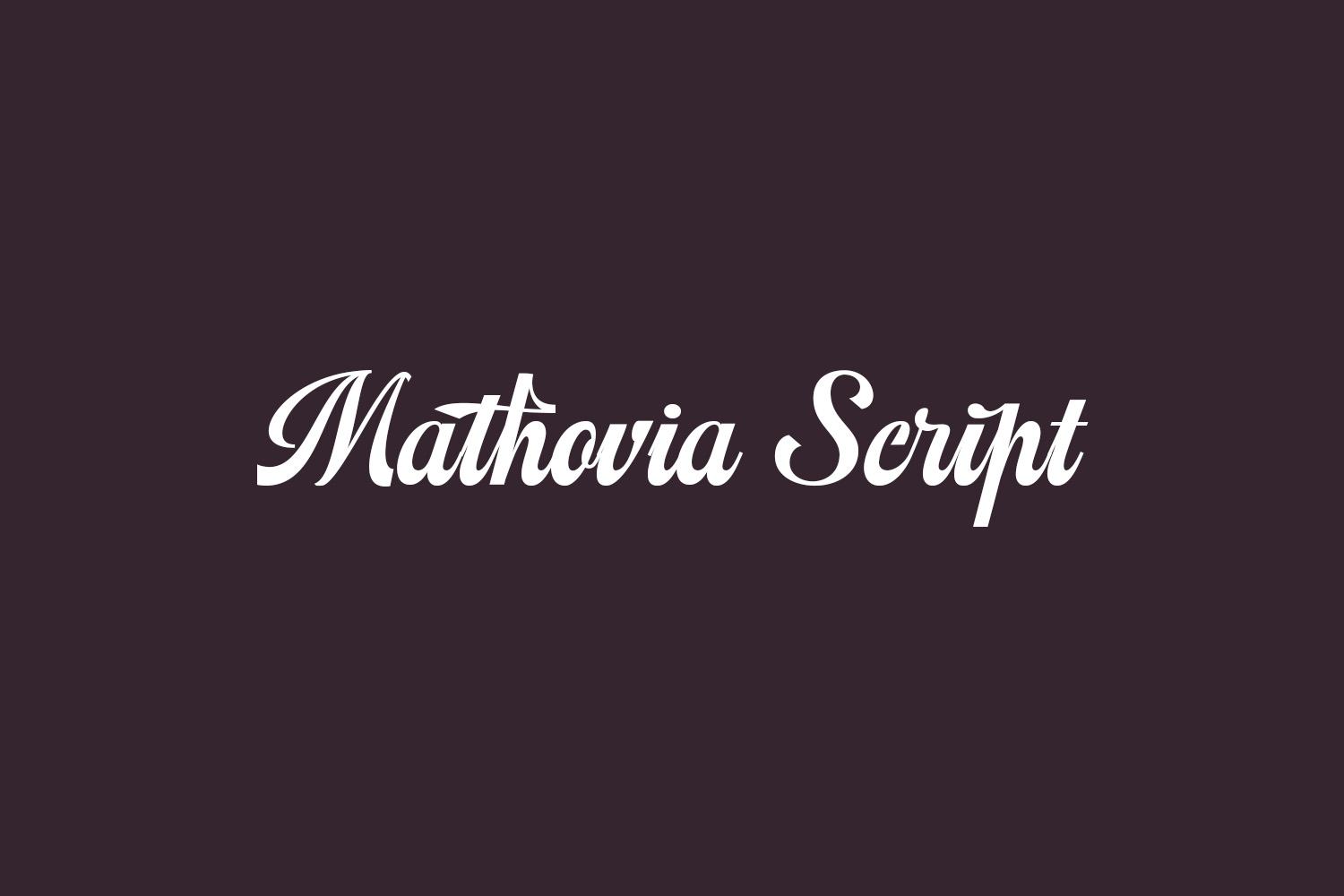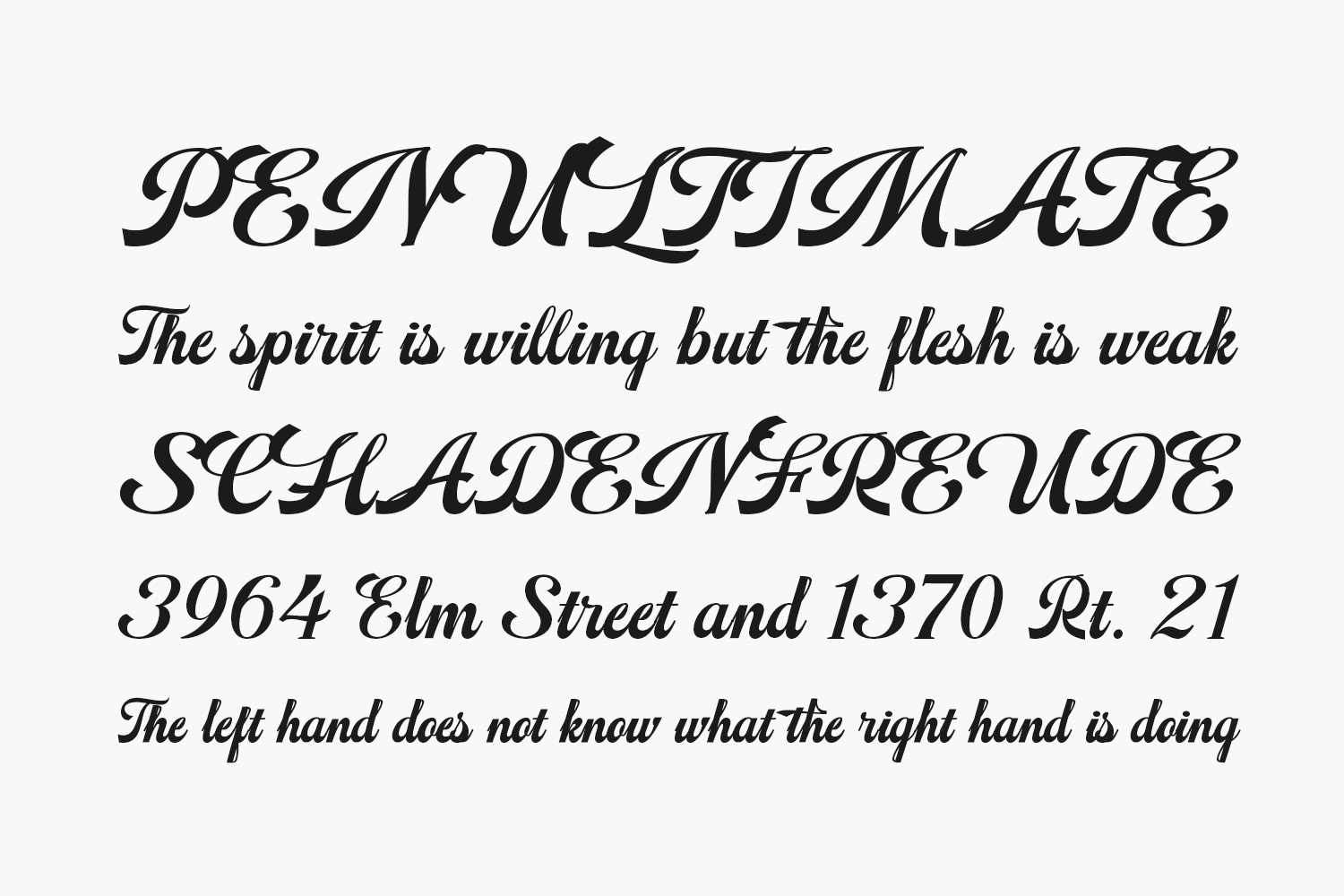
Discover the timeless allure of Mathovia Script Free Font, a vintage handwritten typeface that embodies boldness, classic elegance, and a touch of fun. Ideal for an array of projects, this font adds a distinctive charm to your creative endeavors. Mathovia Script Free Font is free for personal use only. Please purchase the full version for commercial use.